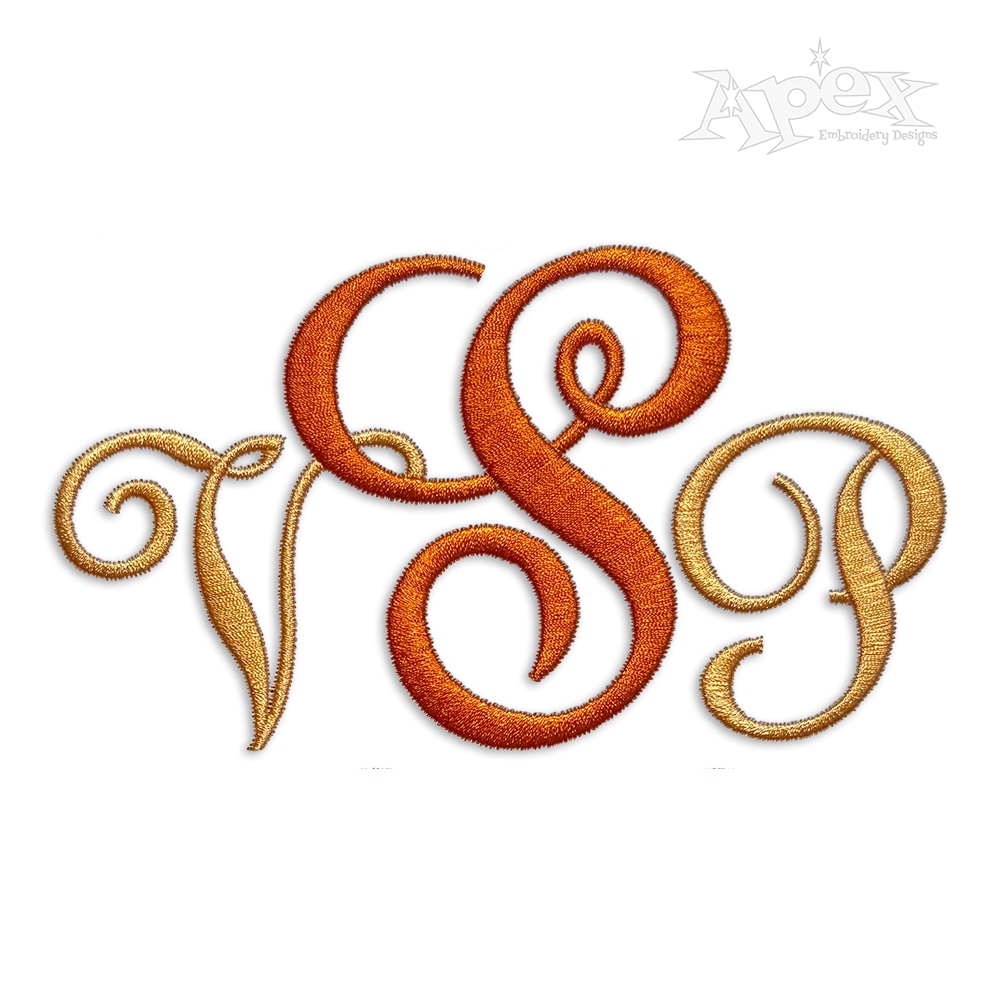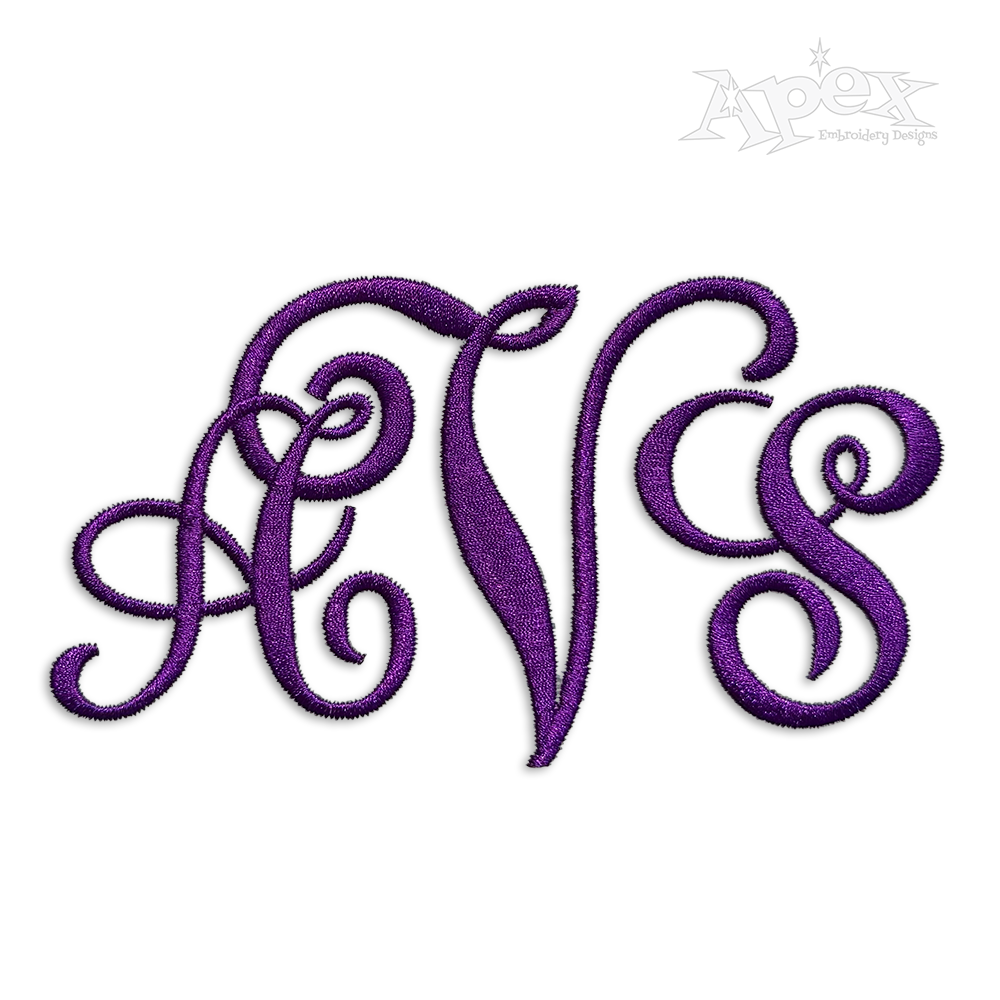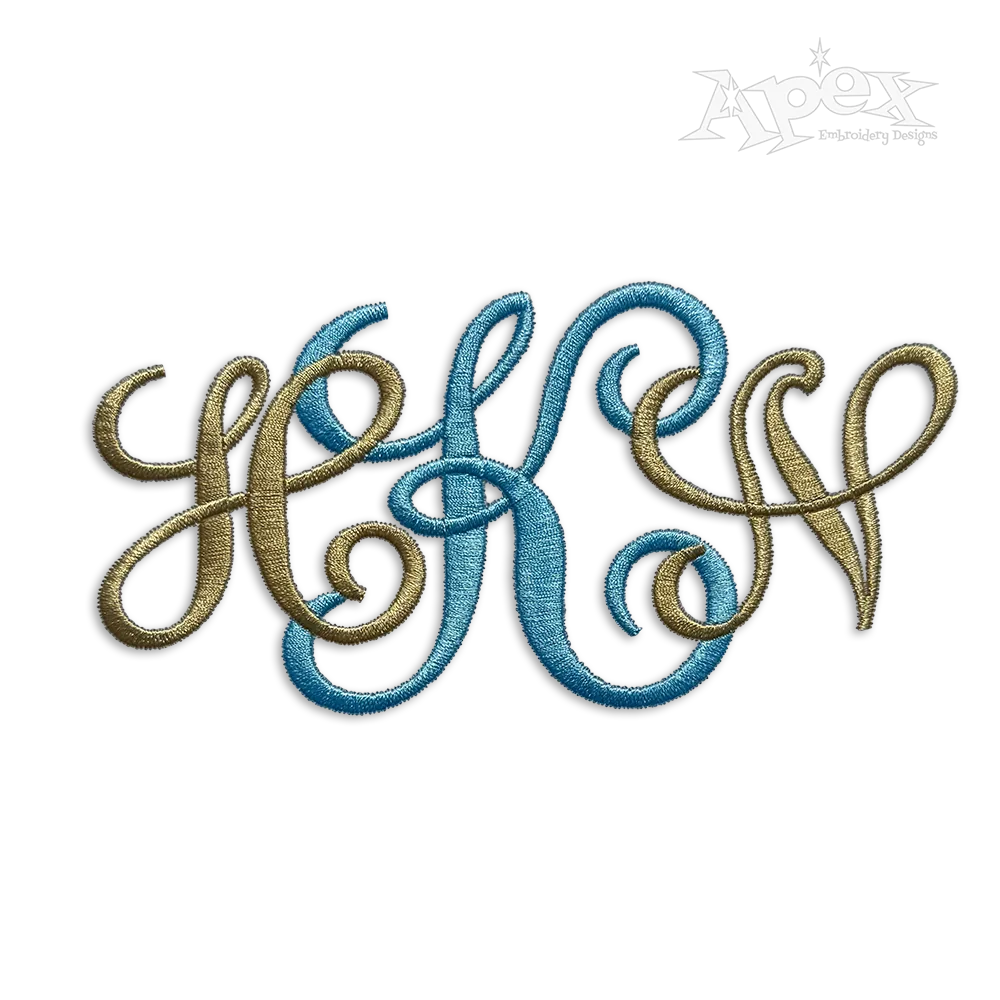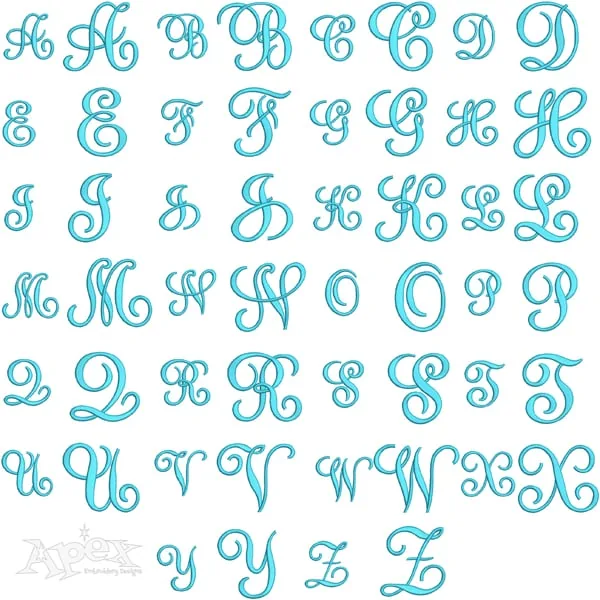
Sydney Embroidery Font
Sydney Embroidery Font captures the graceful cadence of vintage copperplate script, translating romantic calligraphic flourishes into fluid, luminous threadwork. Designed to evoke the quiet grandeur of bespoke European estates, each letterform balances soaring ascenders with softly looped serifs that intertwine effortlessly. Whether personalized across crisp heirloom table linens or stitched onto a bridal trousseau, this monogram alphabet transforms simple initialing into an exquisite statement of personalized luxury.
Sydney Craft & Letterform Details
Digitizing an intricate, sweeping script requires an exacting balance between thread tension and visual weight. Sydney was meticulously mapped with dynamic pull compensation and calibrated stitch angles to ensure its dramatic curved flourishes maintain perfect structural symmetry across fine and heavy textiles alike. Monograms with overlapping flourishes frequently risk needle deflection and bulky thread buildup; we solved this by engineering featherweight traveling underlays and staggered needle penetration points where letters intersect. For the oversized scales?ranging from six inches up to a monumental twelve inches?we implemented a specialized satin step stitch rather than a standard, dense tatami fill. This artisan technique preserves the brilliant reflective sheen of a continuous satin stitch while delivering a light, supple hand that moves naturally with fabric.